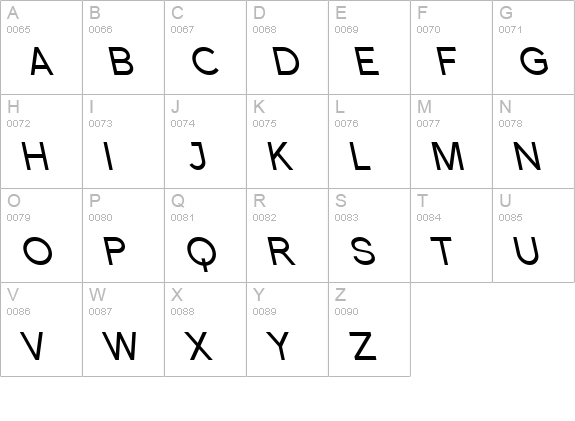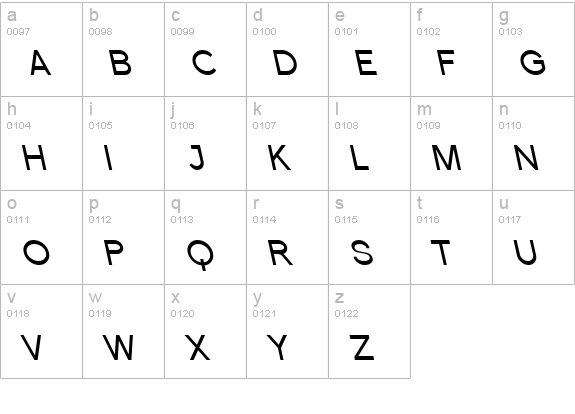
Florencesans SC Rev Italic is a distinctive, italic variant in the Florencesans typeface family \xE2\x80\x94 well suited to design and typography projects.
Florencesans SC Rev Italic is a stunning and elegant font that exudes sophistication and style. With its graceful curves and flowing lines, this italic typeface adds a touch of class to any design project. Perfect for headings, quotes, and other display text, Florencesans SC Rev Italic is sure to make a statement. The best part? This beautiful font is available for free download at FontsMarket.com. Whether you're working on a personal project or a professional design, Florencesans SC Rev Italic is a versatile choice that will elevate your work to the next level. Download it today and add a touch of elegance to your designs!